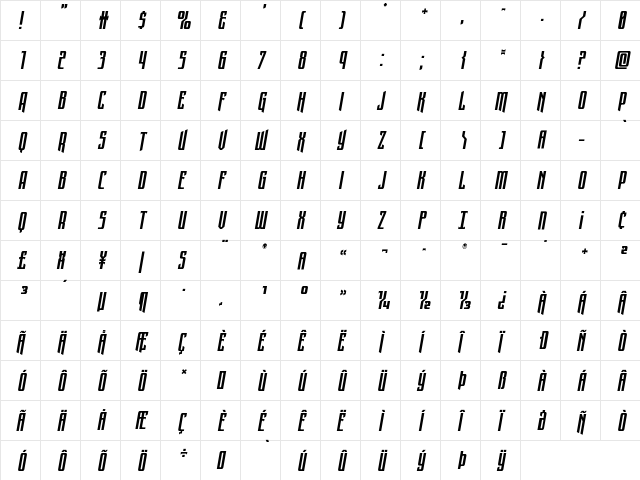
Night Traveler Title Italic Regular
Design Context for Night Traveler Title Italic Typeface
Night Traveler Title Italic offers clean, dependable letterforms without strong stylistic allegiance, making it a practical choice for designers who need flexibility. The slanted form adds forward momentum and visual energy.
Pro Tip: Try Night Traveler Title Italic for annotation and caption copy alongside an upright companion — the contrast in angle creates a dynamic but ordered typographic system.